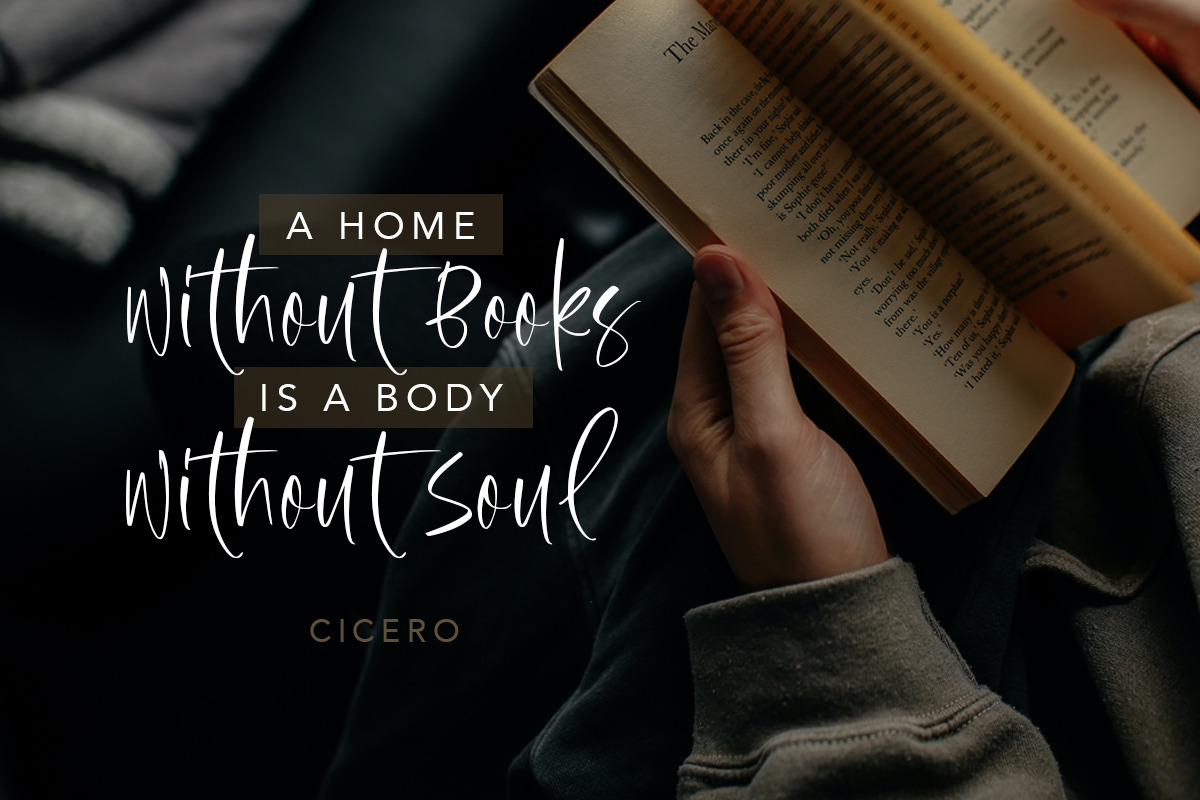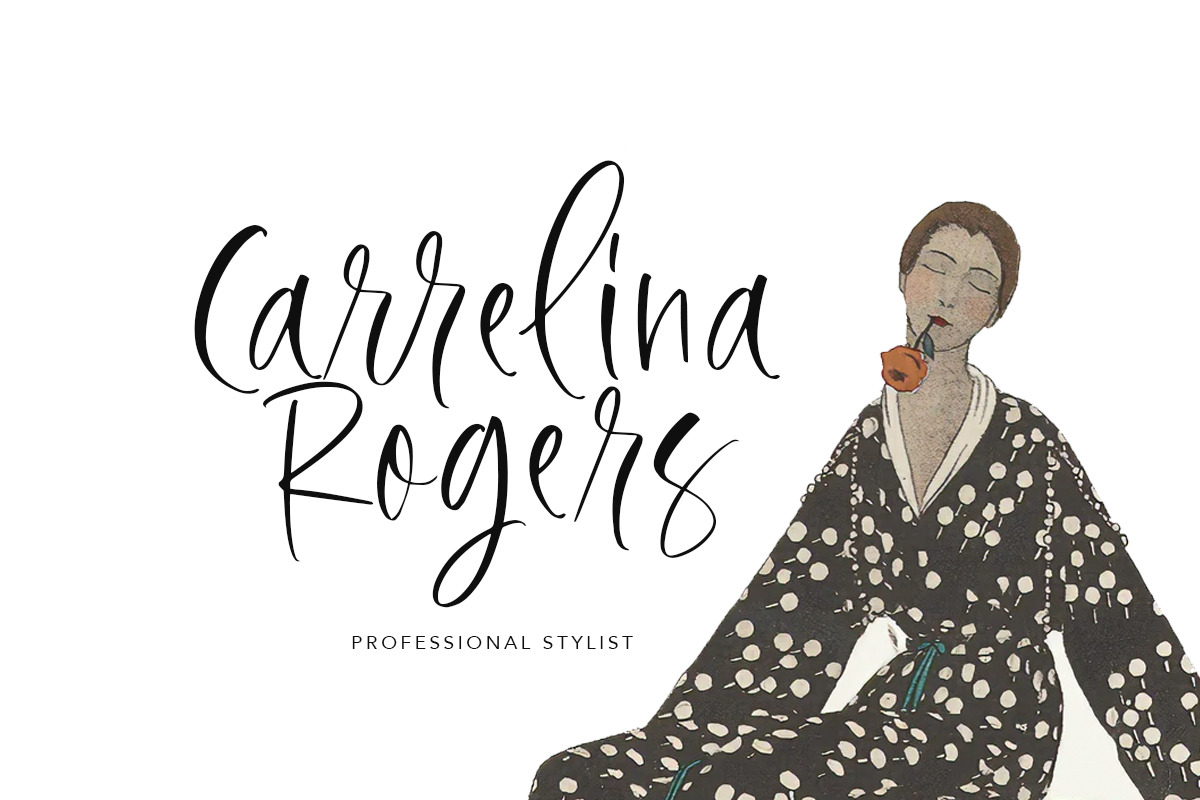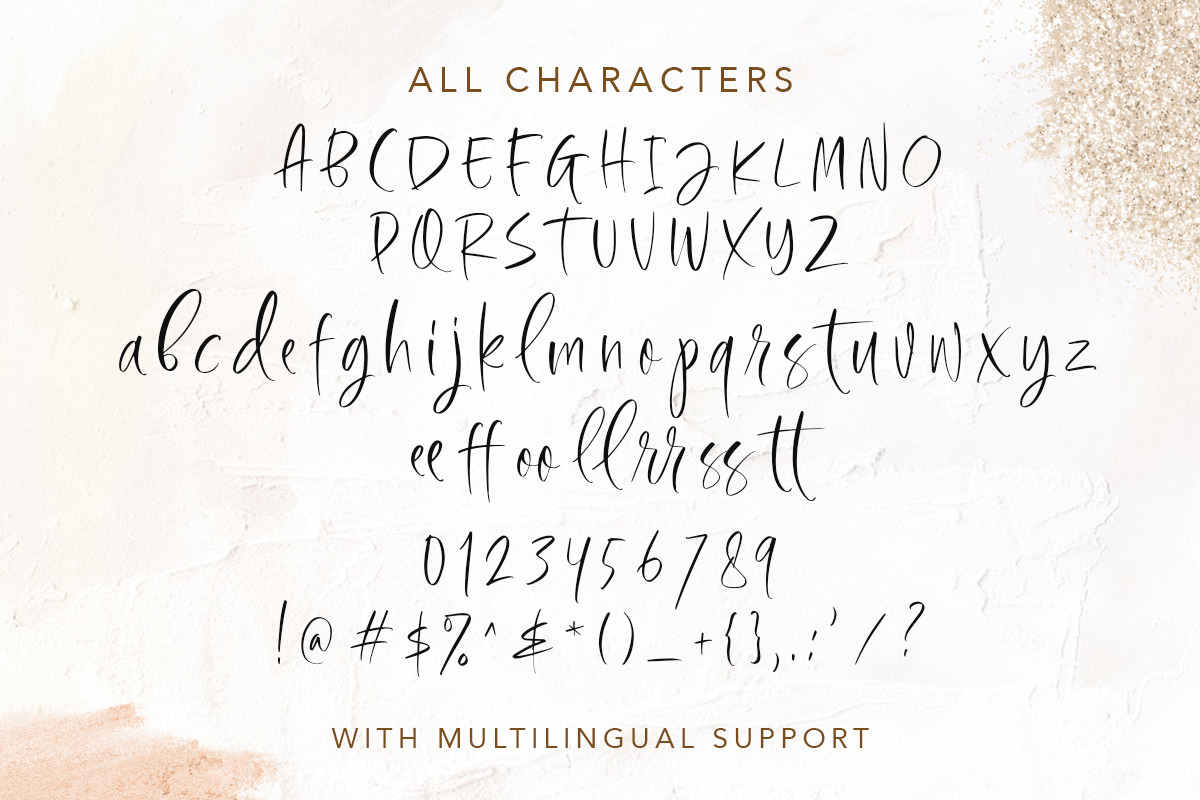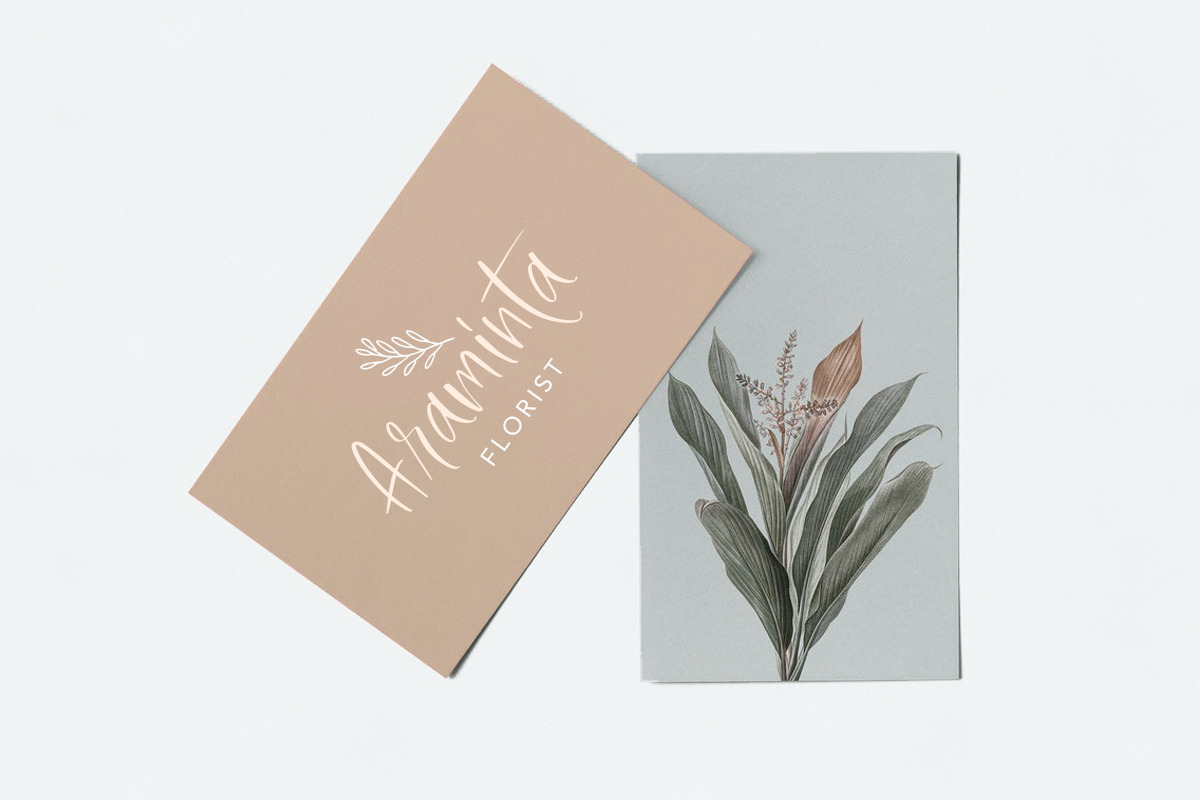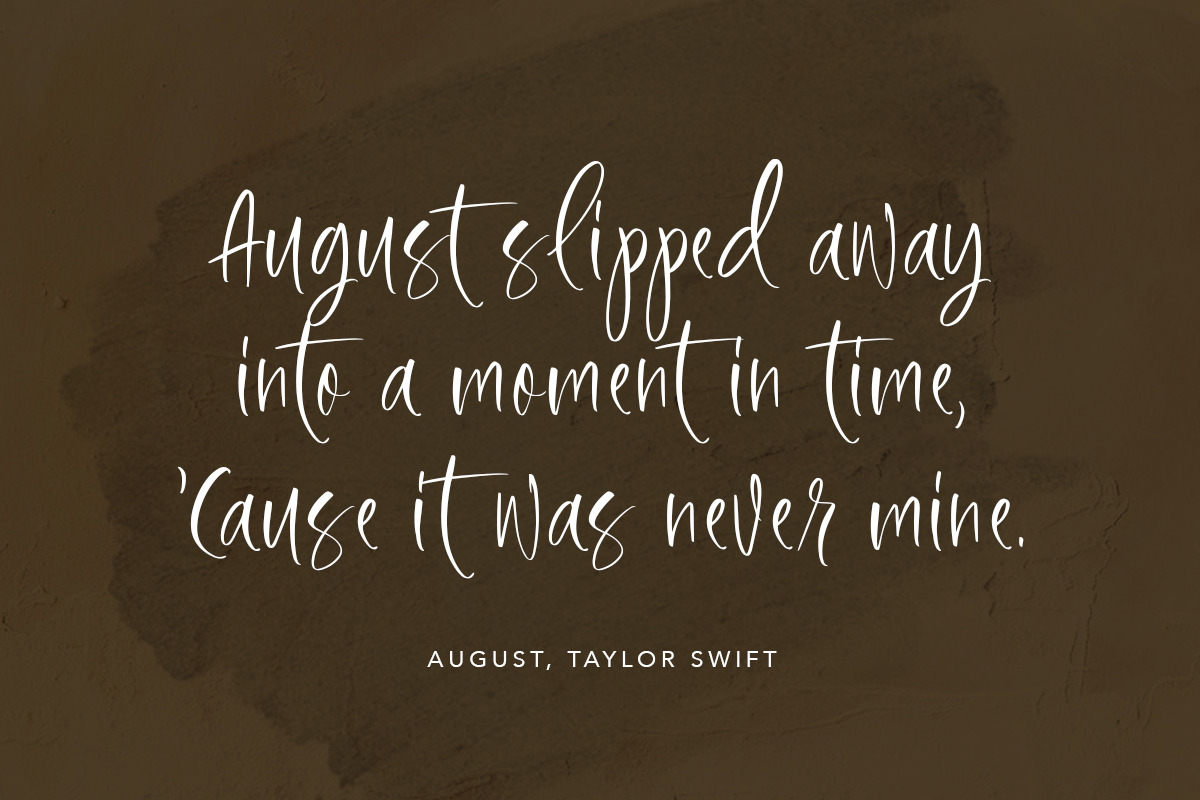
New Orleans - Stylish Script
Introducing, New Orleans, a Stylish Handwritten Script
New Orleans is a stylish handwritten script that contain lowercase, uppercase, symbol, and also support multi language. This font also comes with essential ligature that will make your text more natural. New Orleans also suitable for logo branding, beautiful fashion design, suitable for wedding invitation, or handwritten quote. Also already PUA Encoded.